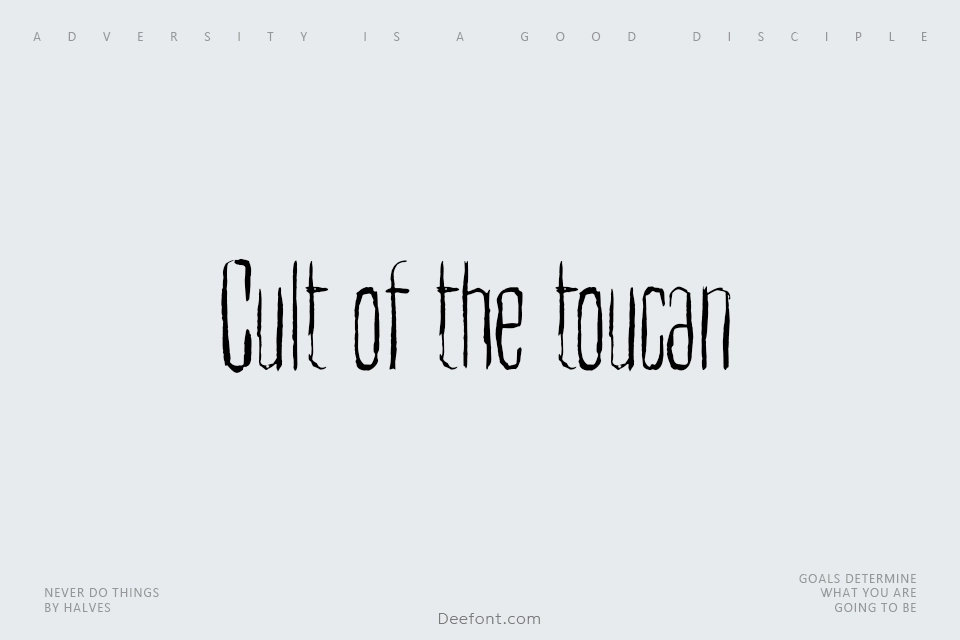
Cult of the toucan Font
Cult of the toucan is a distinctive display font featuring an eroded, distressed aesthetic that brings character and visual intrigue to any design project. Created by Finnish designer Juha Korhonen, this unique typeface combines decorative elements with a weathered appearance, making it perfect for eye-catching headlines, posters, and creative branding. The font includes 137 carefully crafted glyphs and has been downloaded thousands of times since its debut in 2016. Its bold, artistic style appeals to designers seeking unconventional typography that stands out from mainstream fonts, offering a creative solution for projects requiring visual impact and distinctive personality.